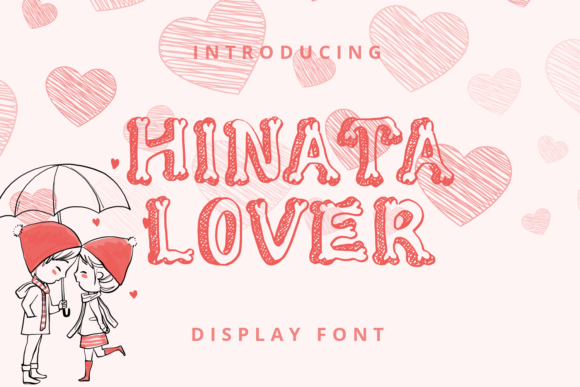
Journey into the Realm of Hinata Lover Font: A Gateway to Creativity and Visual Allure
Unleash your imagination and embark on a creative odyssey with Hinata Lover Font, a display font that exudes charm and playfulness. This enchanting typeface, meticulously crafted by the talented designers at Planetz studio, is a symphony of retro aesthetics and contemporary appeal, making it an ideal choice for designers seeking to infuse their projects with a touch of nostalgia and visual intrigue.
Hinata Lover Font: A Timeless Treasure for Design Enthusiasts
Step into a world where creativity flourishes and visual masterpieces come to life. Hinata Lover Font is not just a collection of letters; it's an artistic tool that empowers you to weave captivating narratives through typography. Its unique character set, reminiscent of simpler times, evokes a sense of warmth and nostalgia, while its clean lines and crisp edges ensure readability and visual harmony.
Capture Hearts with Hinata Lover Font's Unparalleled Beauty
Delve into a realm where aesthetics reign supreme. Hinata Lover Font possesses an inherent ability to transform ordinary words into captivating works of art. Its playful curves and dynamic strokes dance across the screen, capturing the attention of viewers and leaving them spellbound. Whether you're designing logos, posters, flyers, or social media graphics, Hinata Lover Font will elevate your creations to new heights of visual appeal.
Unlock Endless Creative Possibilities with Hinata Lover Font
With Hinata Lover Font as your creative companion, the possibilities are limitless. This versatile font adapts seamlessly to a wide range of design projects, from playful children's illustrations to eye-catching branding materials. Its retro charm lends a touch of whimsy to any project, while its modern sensibilities ensure it remains relevant and impactful in the digital age.
Hinata Lover Font: A Journey of Discovery and Creative Fulfillment
Embrace the magic of Hinata Lover Font and embark on a journey of creative exploration. Let your imagination soar as you craft designs that captivate audiences and leave a lasting impression. With its enchanting style and boundless versatility, Hinata Lover Font is the key to unlocking your creative potential and transforming your design dreams into tangible realities.